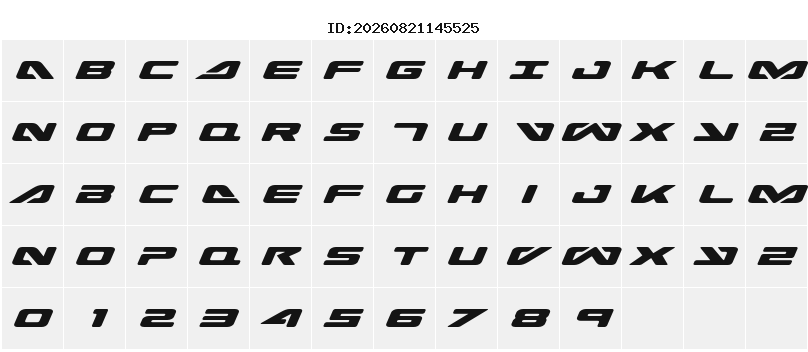
Sea-Dog Expanded Italic Preview
• Font Name: Sea-Dog Expanded Italic
• Font Style: Expanded Italic
• Full Font Name: Sea-Dog Expanded Italic
About Sea-Dog Expanded Italic.ttf
Sea-Dog Expanded Italic.ttf is a modern, elegant sans-serif font designed for ultimate readability and visual harmony. Perfect for branding, headlines, web design, and print materials.